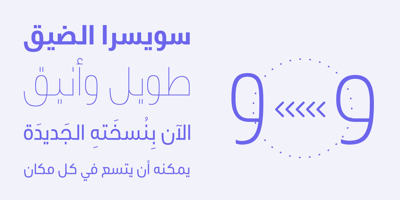
Swissra Condensed
Swissra Condensed font
Swissra Condensed Font Family was designed by Ali Almasri and published by Abjad. Swissra Condensed contains 8 styles and family package options. Following the great success of Swissra, the condensed cut was designed on the same principles of Swiss graphic design. Originally Swissra was designed to create a neutral and carefully crafted Arabic font family that can be used on many different applications. Now it creates even more possibilities to help designers in applications such as signage and editorial design where the condensed cut is needed. The typeface is one of very few Arabic condensed typefaces. Swissra Condensed comes in eight weights which range from Ultralight to Black.